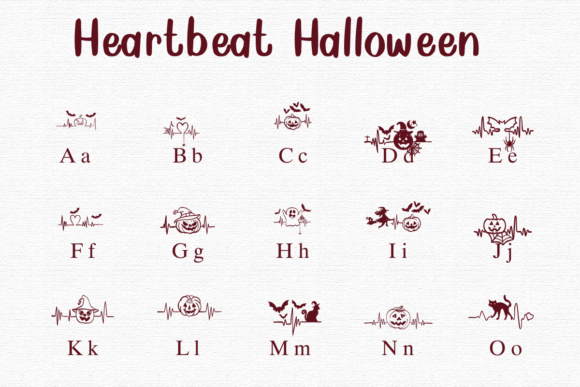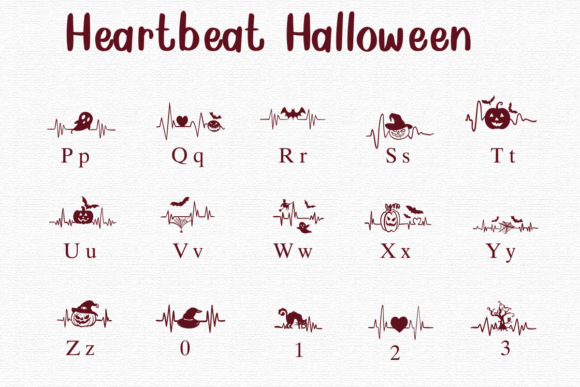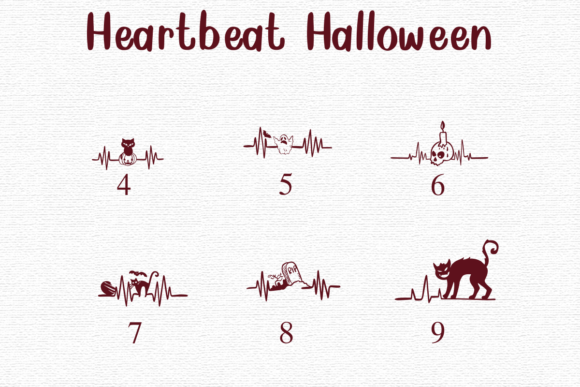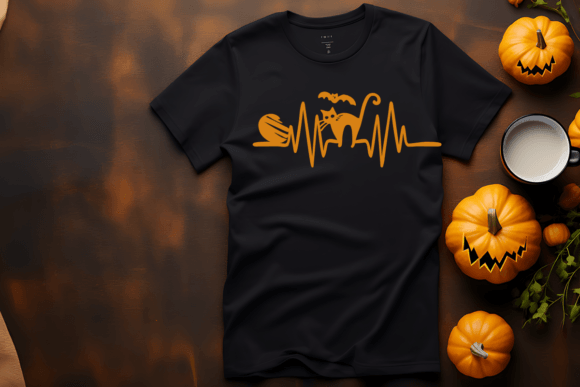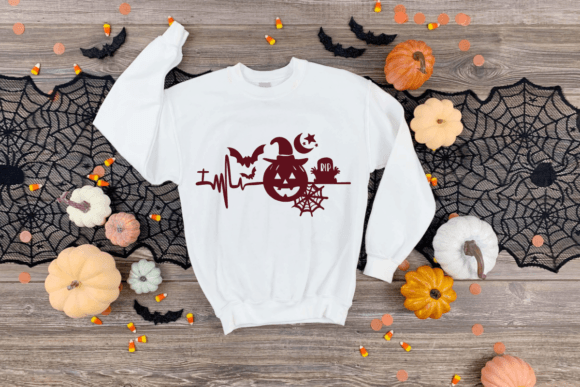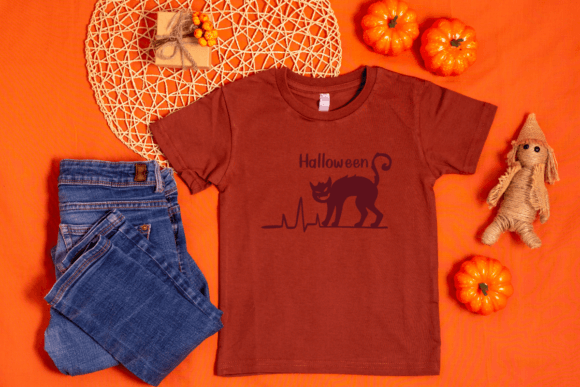
Introducing Heartbeat Halloween Font: Add a Spooky Touch to Your Designs
Are you looking for a unique and fun way to add a Halloween touch to your designs? Look no further than the Heartbeat Halloween Font! This exciting dingbat font features a heart line with Halloween-themed images like pumpkins, black cats, and other spooky symbols that are sure to make your designs stand out.
What is Heartbeat Halloween Font?
The Heartbeat Halloween Font is a specially designed dingbat font that showcases a variety of Halloween-themed images in a heart line. The font features a range of spooky and fun symbols, including:
- Pumpkins and jack-o-lanterns
- Black cats and bats
- Skeletons and ghosts
- Other creepy and crawly creatures
These images are arranged in a heart line, creating a unique and eye-catching design that’s perfect for adding a touch of Halloween spirit to your projects.
Why Use Heartbeat Halloween Font?
There are many reasons why designers and crafters love the Heartbeat Halloween Font. Here are just a few:
- Unique and eye-catching designs: The Heartbeat Halloween Font features a range of unique and eye-catching designs that are sure to make your projects stand out.
- Versatile: The Heartbeat Halloween Font can be used for a wide range of projects, from Halloween cards and invitations to decorations and DIY crafts.
- Fun and spooky: The font adds a fun and spooky touch to your designs, making it perfect for Halloween-themed projects.
Ideas for Using Heartbeat Halloween Font
The Heartbeat Halloween Font is perfect for a wide range of projects, including:
- Halloween cards and invitations: Add a spooky touch to your Halloween cards and invitations with the Heartbeat Halloween Font.
- DIY decorations: Use the font to create fun and spooky decorations, such as garlands and banners.
- Craft projects: Add a Halloween touch to your craft projects, such as scrapbook pages and journal entries.
- Social media graphics: Use the font to create spooky and fun social media graphics, such as Halloween-themed Facebook posts and Instagram stories.